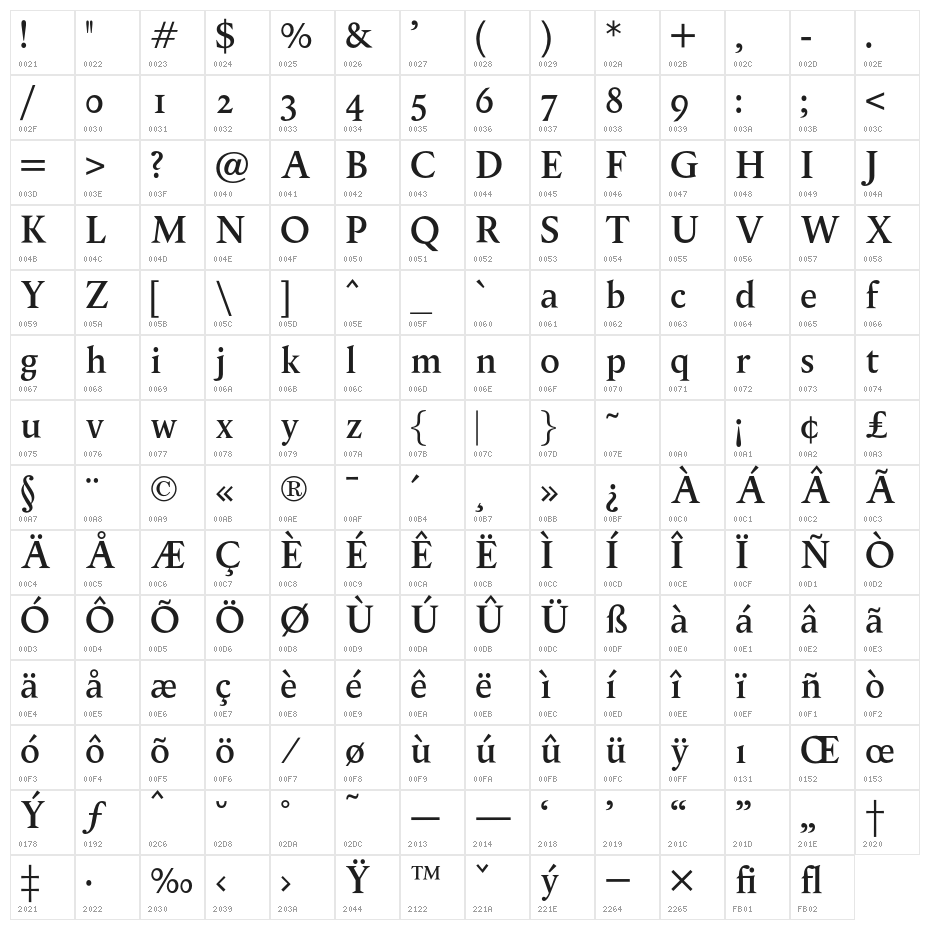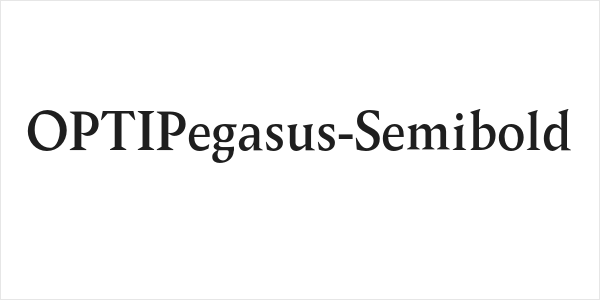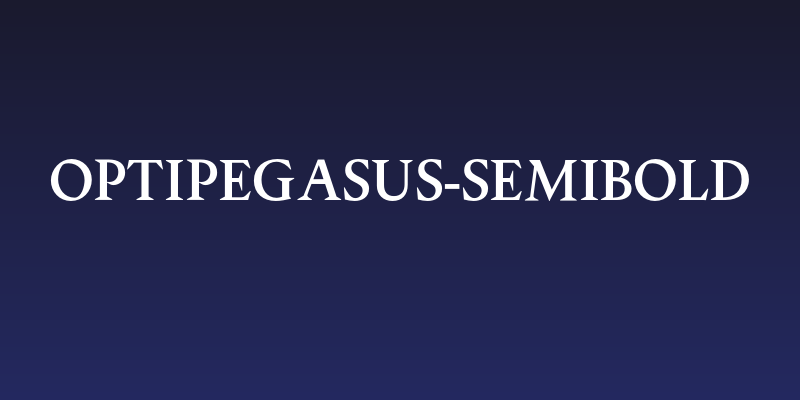
OPTIPegasus-Semibold Font
OPTIPegasus-Semibold Description
This font features a classic serif style with elegant, well-defined strokes that convey a sense of tradition and sophistication. The uppercase letters are bold and commanding, while the lowercase letters maintain a consistent and harmonious flow. The numerals are clear and balanced, making them easily readable. Special characters are distinct and well-integrated into the overall design. The font's structure is robust, with a medium contrast between thick and thin strokes, adding to its legibility and visual appeal.
| Proposed Projects | Ideal for editorial design, book covers, formal invitations, and branding projects that require a touch of elegance and tradition. |